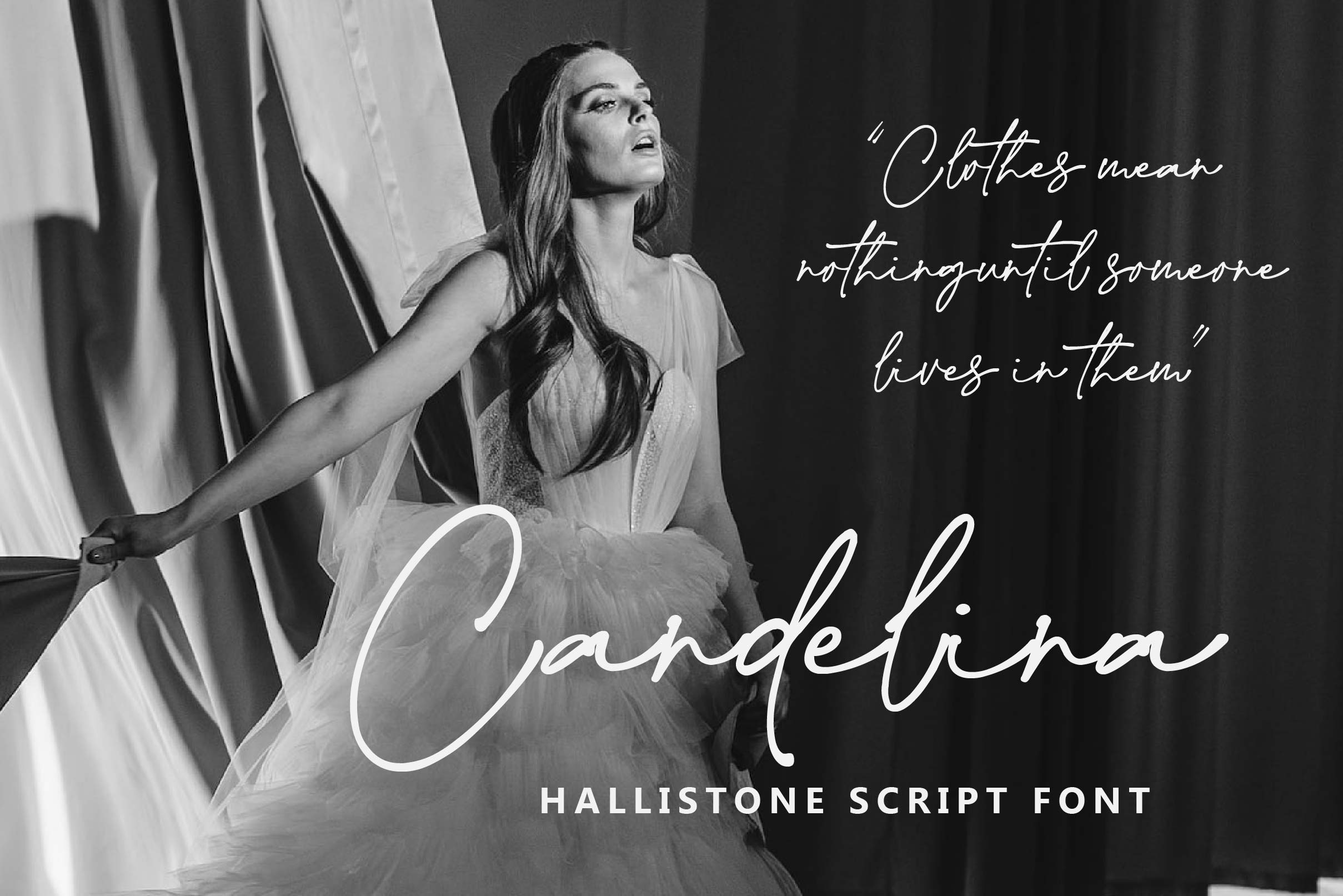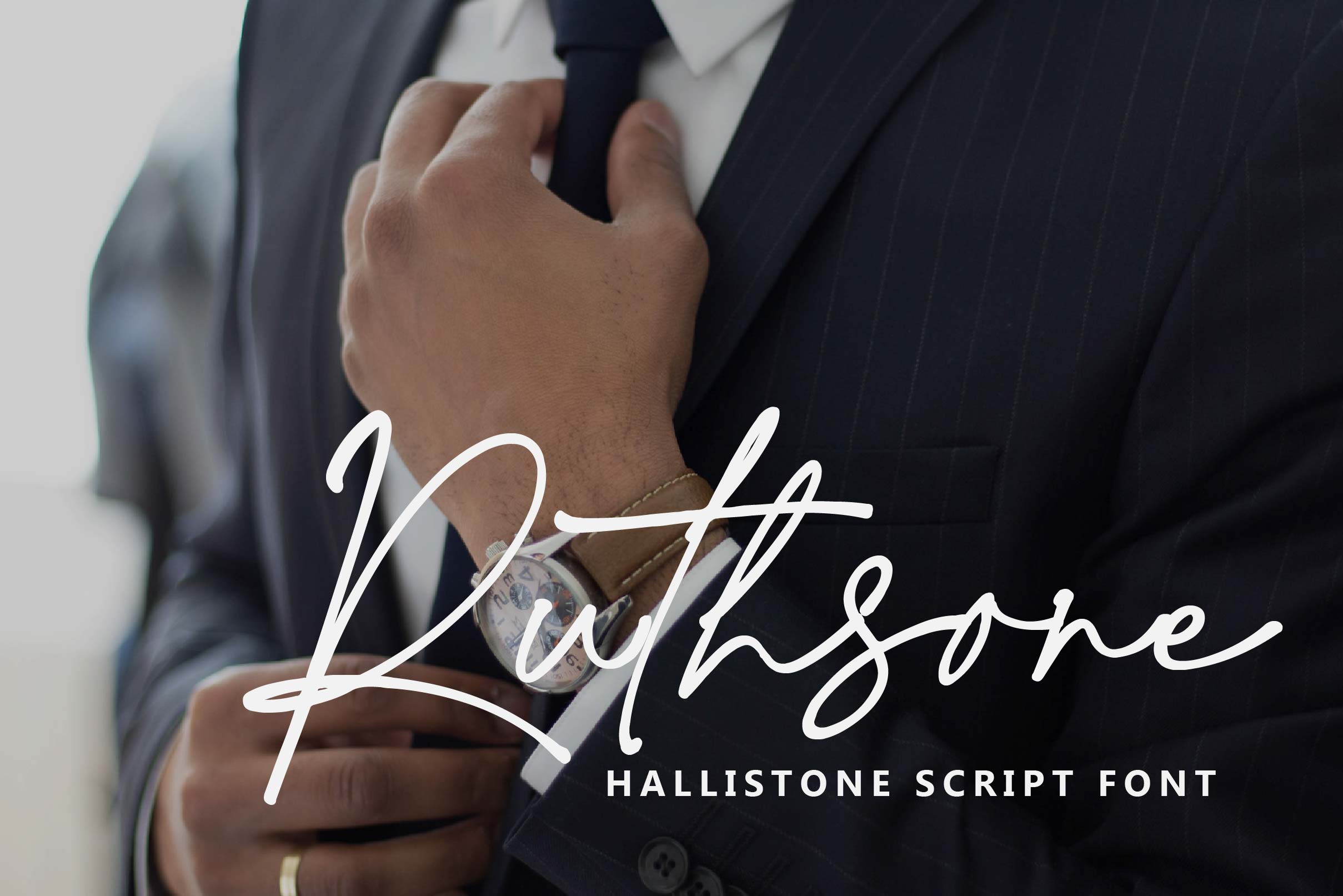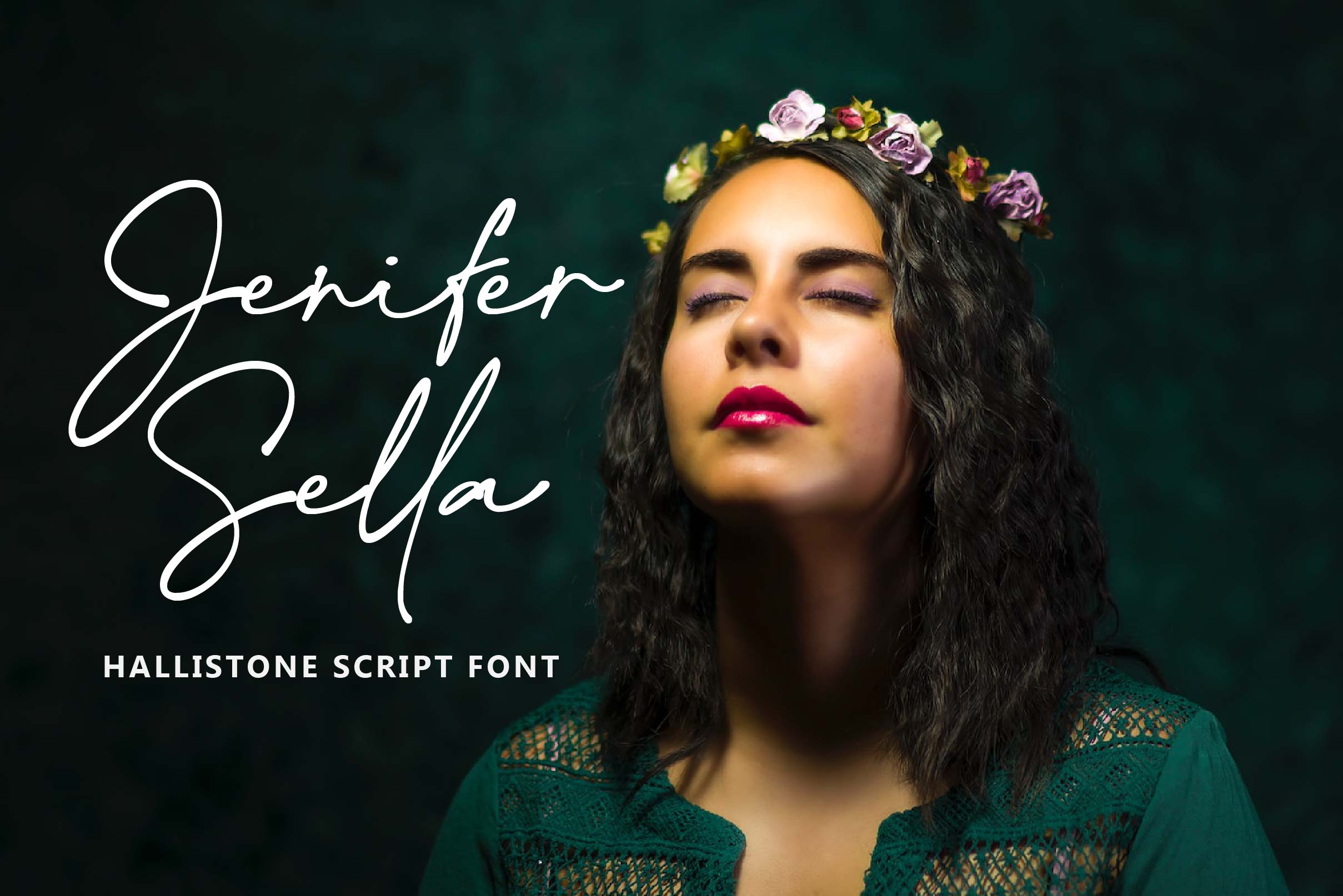
Hallistone Font
Hallistone Handwritten Font is a delicate and cursive script font. Not too thin and not too thick, balanced and varied, this font was designed to enhance the beauty of your projects.
– Uppercase, Lowercase, Numeral & Punctuation
– Alternate Letters, Ligature & Swash/Tail
– Multilingual & PUA Encoded